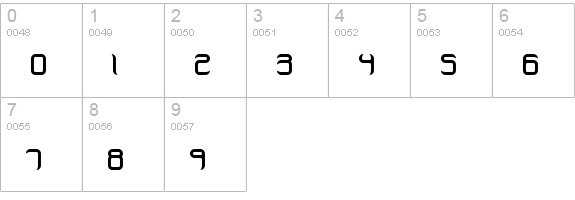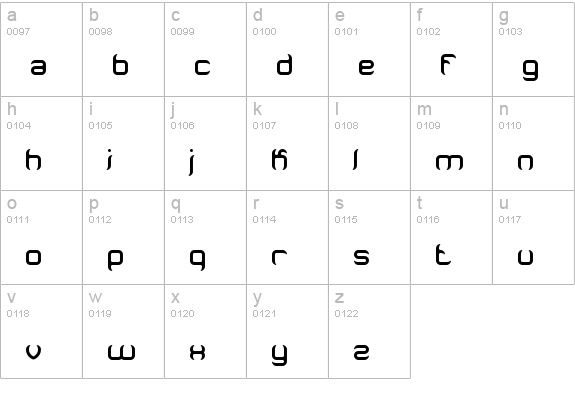
Jeopardize BRK Font Details
Introducing Jeopardize BRK font, a bold and eye-catching typeface that demands attention with its strong, distinctive letterforms. Perfect for headlines, posters, branding, and any design project that requires a touch of edginess and modernity. The sharp angles and unique styling of Jeopardize BRK font make it a versatile choice for both digital and print applications, adding a dynamic flair to your creations. Best of all, Jeopardize BRK font is available for free download at FontsMarket.com. It's never been easier to elevate your designs with this striking typeface. Don't miss out on this opportunity to add a touch of boldness and sophistication to your projects with Jeopardize BRK font. Download it today and let your creativity shine!